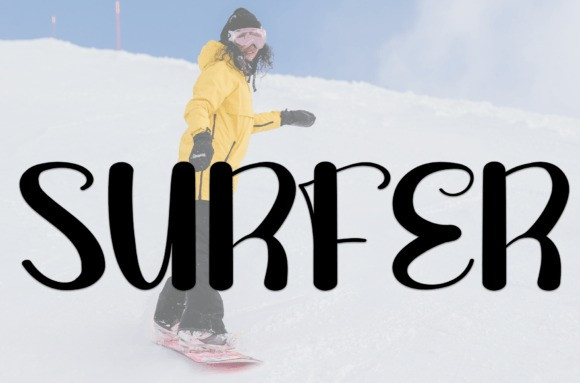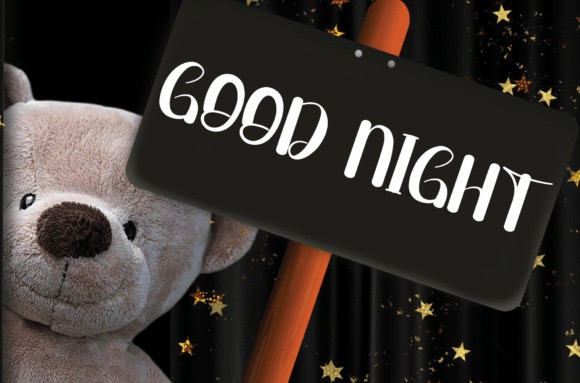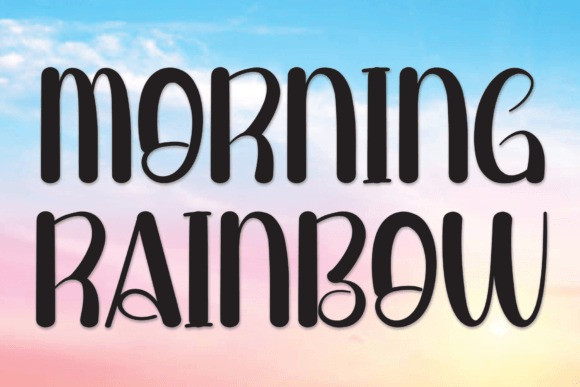
Morning Rainbow Font
Morning Rainbow Font is a sweet and friendly handwritten font. Fun and relaxed, this font is ideal for writing wedding invitations, cards, or any other design that might need a lovely touch!